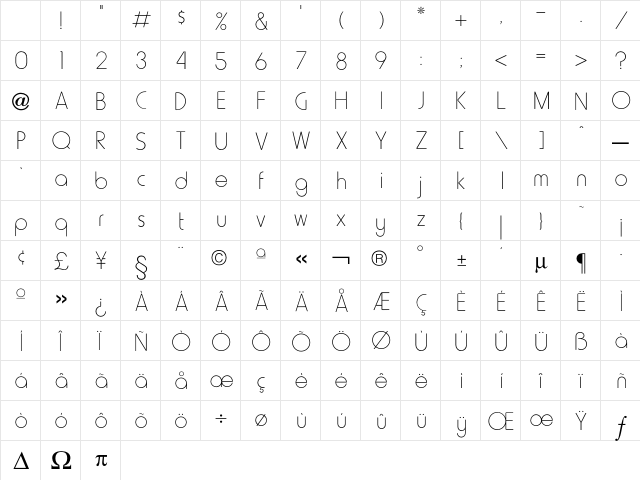
Harry is a composed and adaptable typeface that performs quietly and consistently across a wide range of design contexts. Its slender proportions lend an understated elegance to any composition.